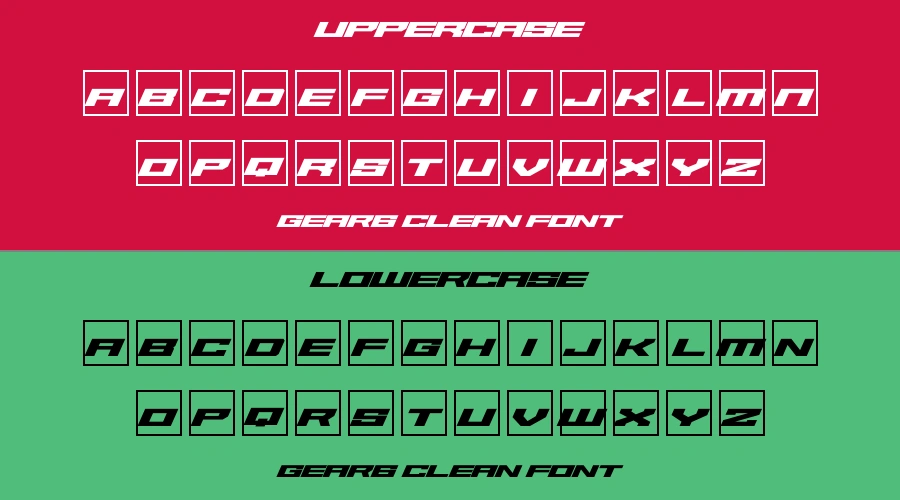
About Gear6 Clean Font
Designed with precision, Gear6 Clean Font merges tapered strokes with clarity in every character. This versatility makes it particularly effective for product naming, where distinctiveness and cultural resonance directly impact communication quality. Each letterform demonstrates meticulous craftsmanship.
Technical excellence shines through elements like alternates and kerning pairs, enhancing typographic versatility. In body text settings, Gear6 Clean Font proves its worth through superior detail preservation. The thoughtful execution of cap height ratio and technical innovation ensures professional results.
Gear6 Clean Font |